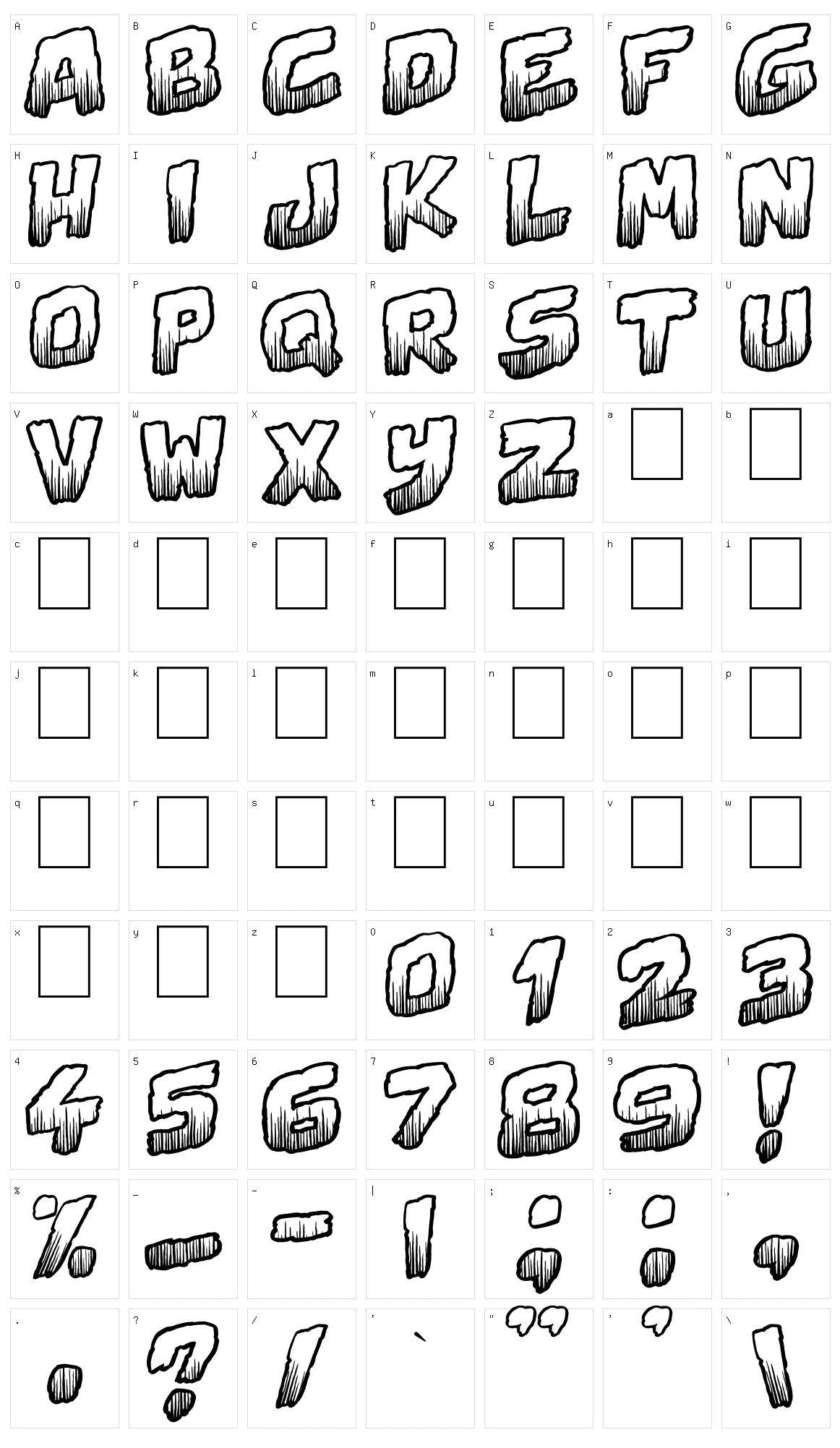
The free font Swamp Death is carefully designed by imagex, showcasing a thoughtful balance of creativity and usability and falls under the Horror font style. When you download the ZIP file, it contains only 63.8 KB of font files, making it lightweight and quick to download. Please review the license details below to understand permitted usage and distribution rights. If license information is not available, we recommend using this font for personal projects only or contacting the author directly for commercial usage permissions.